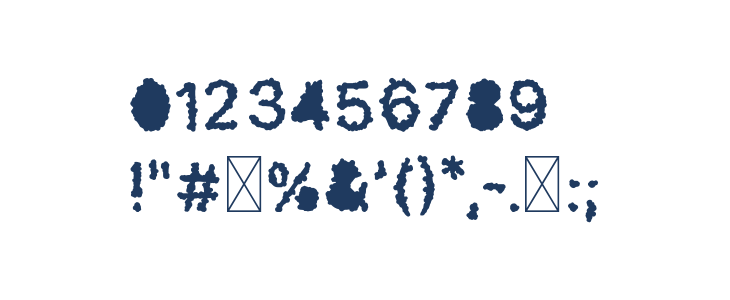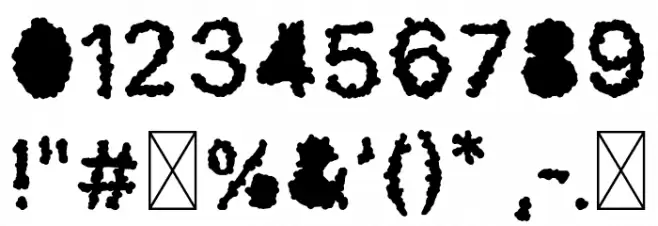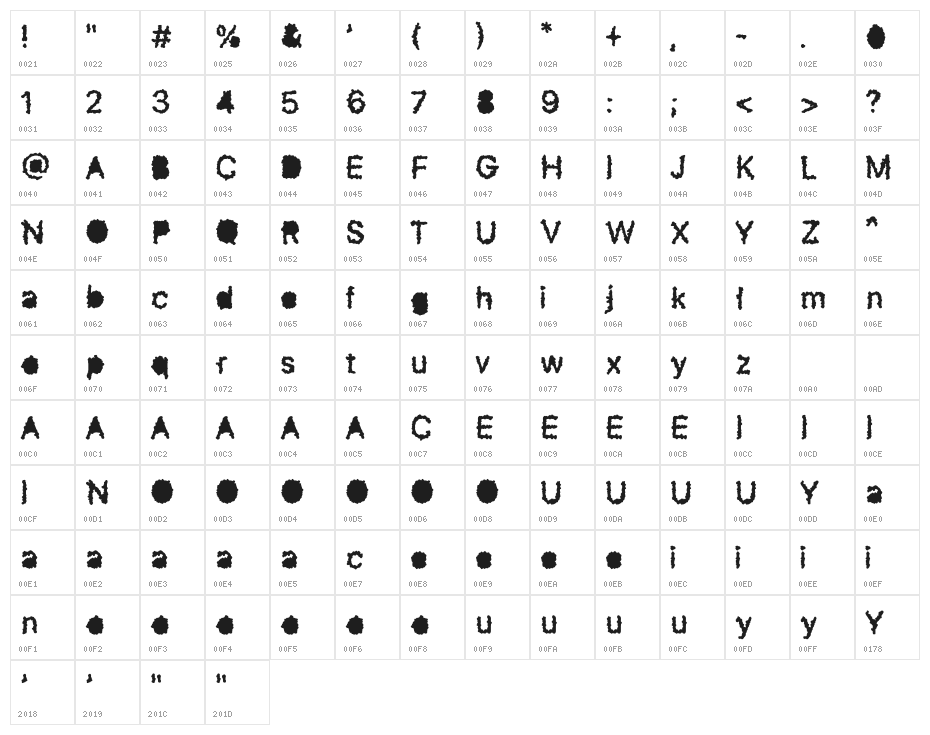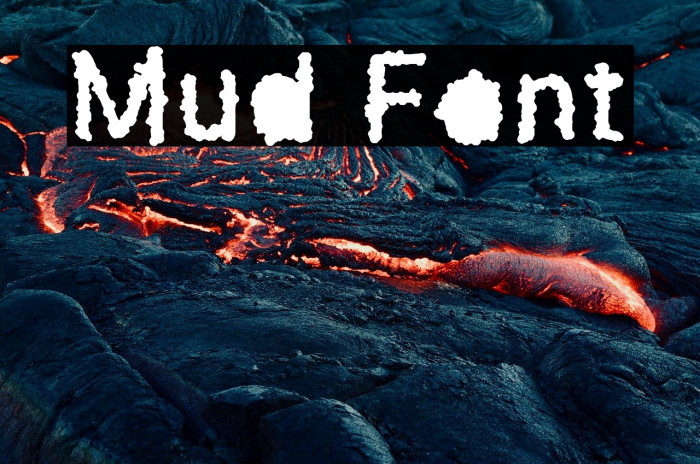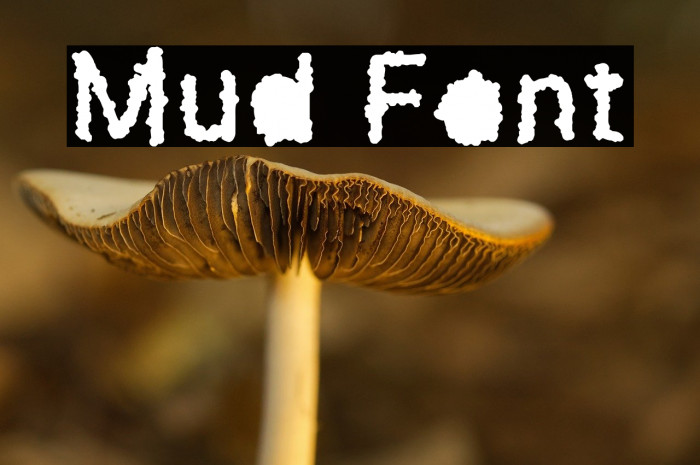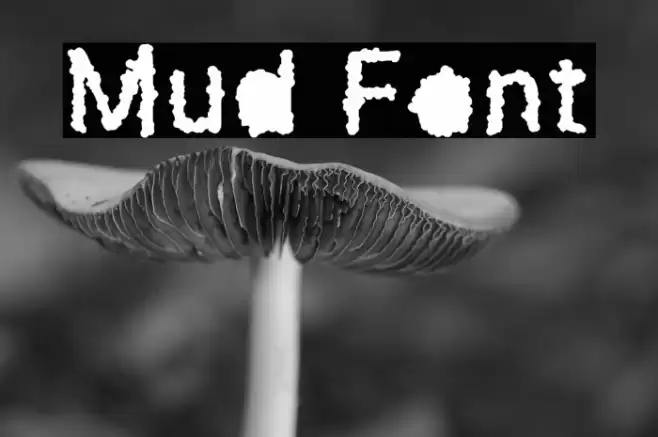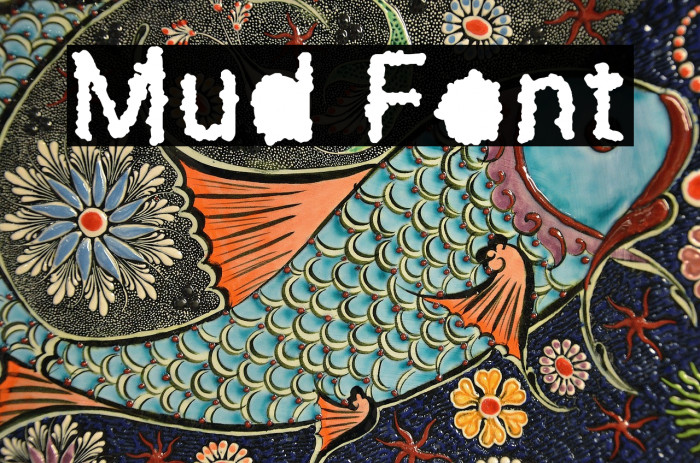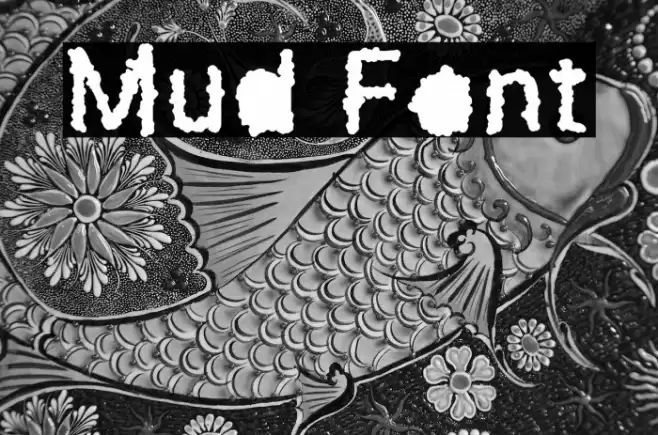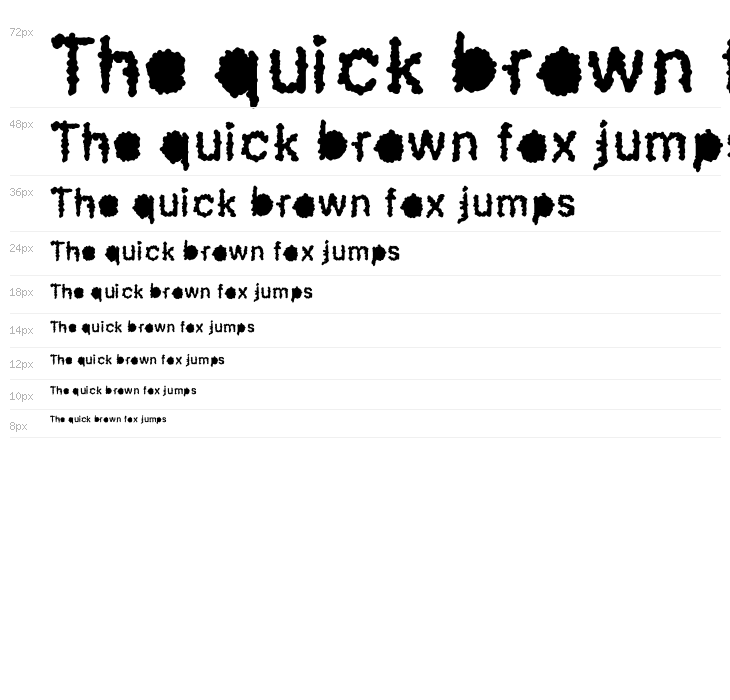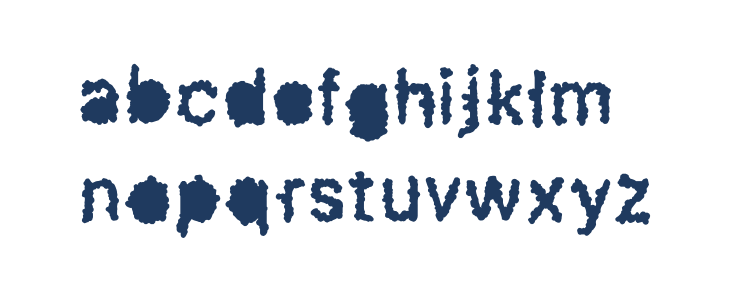
Mud Font
Mud Description
This font features a highly textured and irregular design, reminiscent of splattered mud or ink blots. Each character is unique, with uneven edges and a bold, organic appearance. The uppercase and lowercase letters maintain a consistent style, with the same rough, jagged outlines. Numbers and special characters follow this theme, adding to the font's cohesive look. The overall effect is striking and eye-catching, making it suitable for projects that require a bold and unconventional aesthetic.
| Proposed Projects | Ideal for artistic projects, posters, album covers, or any design requiring a bold and unconventional look. |